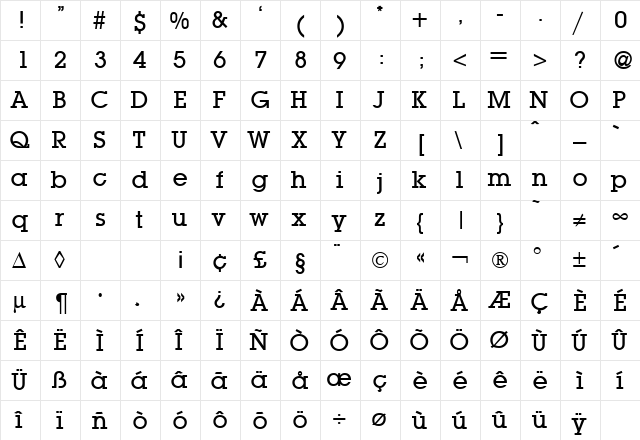
LubbersMedium Regular
Design Context for LubbersMedium Typeface
LubbersMedium is a composed and adaptable typeface that performs quietly and consistently across a wide range of design contexts.